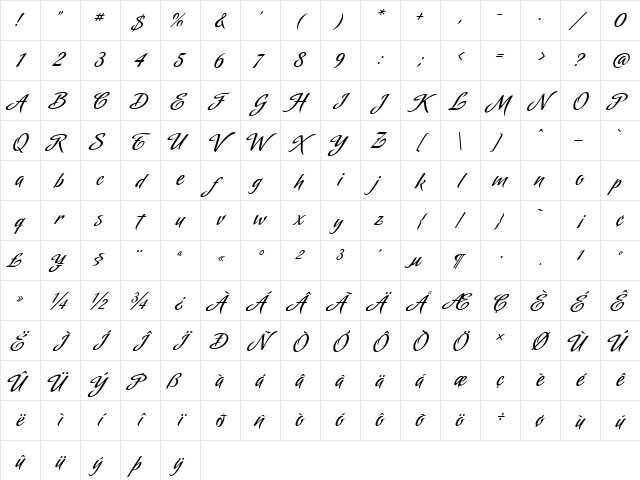
Complete Amorinda Alternates Regular glyph index. Displaying only characters natively supported by Amorinda Alternates Regular font.
Amorinda Alternates is a composed and adaptable typeface that performs quietly and consistently across a wide range of design contexts.